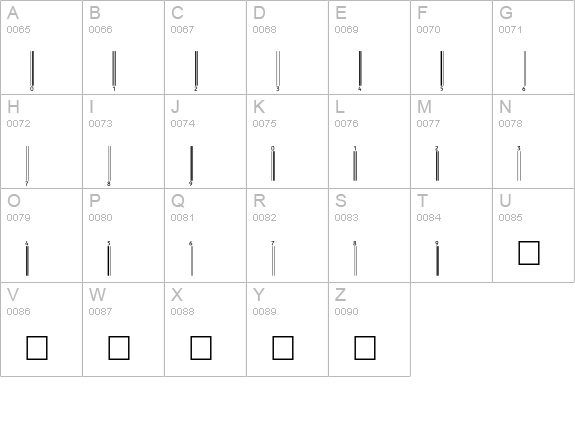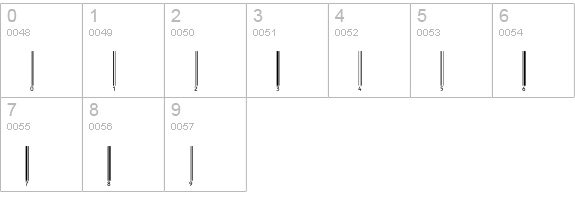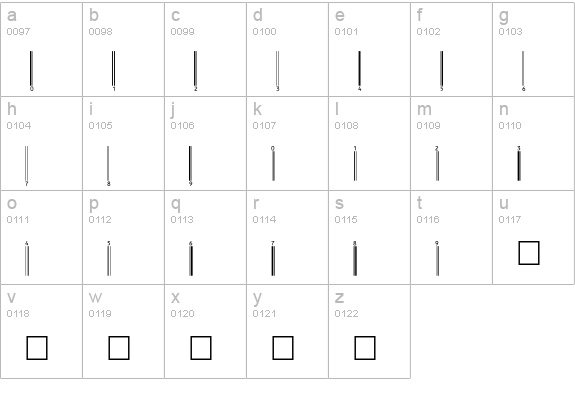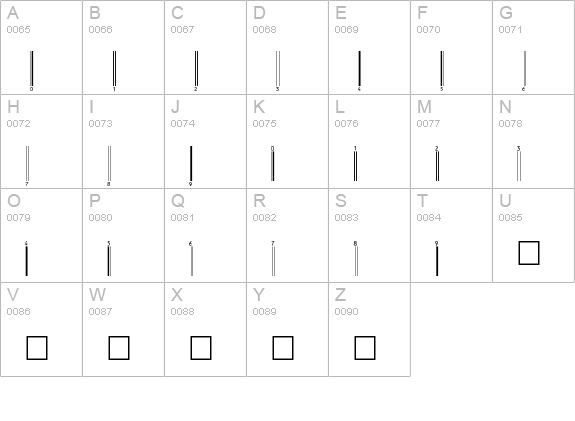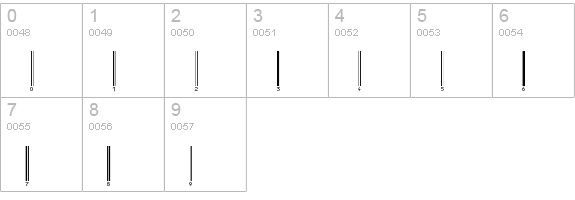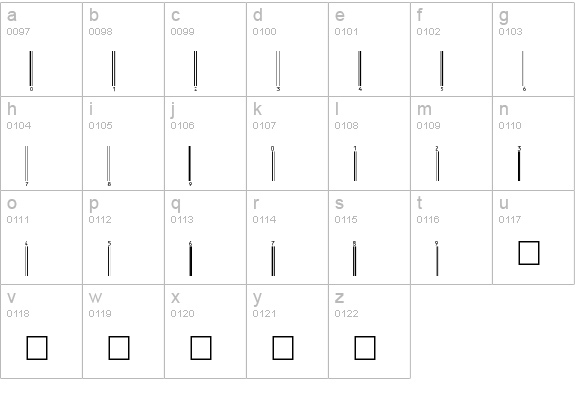
EanBwrP72Tt Font Details
Introducing EanBwrP72Tt font, a beautifully crafted typeface that combines elegance and modernity to create a truly unique and eye-catching design. This font is perfect for a wide range of creative projects, from logos and branding to website headers and social media graphics. Featuring sleek lines and a balanced letterform, EanBwrP72Tt font exudes sophistication and professionalism, making it an excellent choice for professional designers and businesses alike. Its versatility allows it to be used in both digital and print media, ensuring a seamless and consistent visual identity across all platforms. But what truly sets EanBwrP72Tt font apart is that it is free! Yes, you read that right. This stunning font is freely available to download at FontsMarket.com, making it accessible to designers and enthusiasts alike. Now, you can elevate your projects without breaking the bank. Whether you're working on a personal project or collaborating with a client, EanBwrP72Tt font will undoubtedly make a lasting impression. Its clean and modern aesthetic will captivate your audience and convey your message with clarity and style. So why wait? Head over to FontsMarket.com and download EanBwrP72Tt font today. Don't miss out on this incredible opportunity to enhance your designs with a beautiful and free font that will make your work shine.